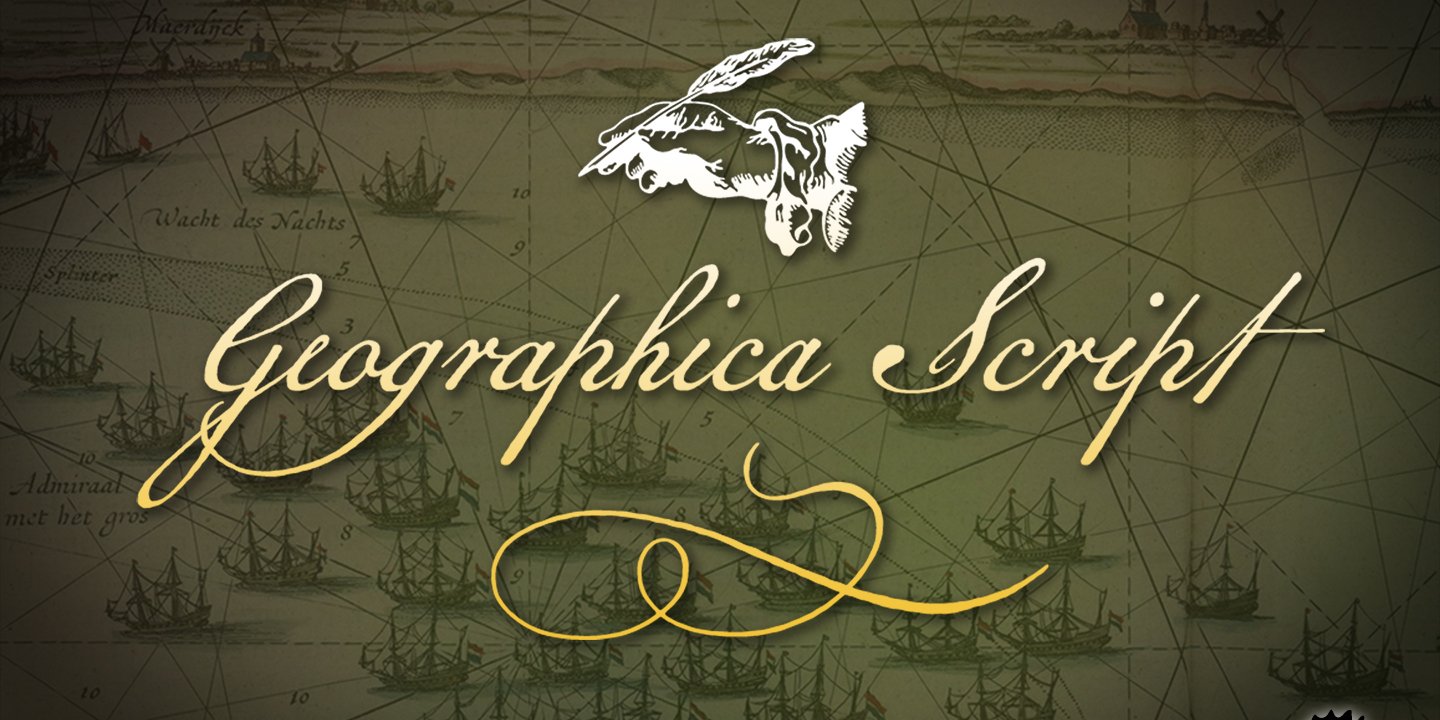
Geographica Script Font is perfect for travel blog headers, adventure tourism branding, cartographic design projects, geographical educational materials, expedition documentation, vintage map reproductions, exploration company logos, world heritage site signage, cultural geography publications, and wanderlust-inspired marketing campaigns.
Geographica Script Font is exciting because it captures the spirit of exploration and geographical discovery through its fluid, cartographic-inspired letterforms that evoke the elegance of hand-drawn maps while delivering messages with adventurous sophistication and worldly charm.
Geographica Script Font family includes Regular, Bold, Light, Expedition, Italic, Condensed, Atlas, and Compass variations, providing designers with a complete exploration toolkit to create inspiring visual communications that celebrate global discovery and geographical knowledge across diverse travel applications.
Geographica Script Font embodies the essence of wanderlust and geographical exploration, making it an essential choice for travel companies, educational institutions, and cultural organizations that celebrate the beauty of our planet and the human desire to explore new territories. This adventurous typeface brings worldly sophistication to any design project, whether you're developing travel agency identities, creating geography educational resources, or designing materials for cultural exchange programs. The elegantly crafted character flow of Geographica Script Font Free Download ensures maximum visual appeal while maintaining excellent readability across both traditional print maps and contemporary digital travel platforms that inspire global exploration and cultural discovery.
Travel industry professionals consistently select Geographica Script Font for luxury travel agencies, cultural tour operators, and adventure travel companies because of its ability to communicate wanderlust, cultural sophistication, and appreciation for global diversity. The font's worldly appearance makes it particularly effective for targeting experienced travelers and creating brand experiences that emphasize authentic cultural exploration.
Geographica Script Font excels in educational and cultural applications where geographical knowledge and cultural understanding intersect. Geography departments, cultural museums, and international exchange programs rely on this font to create materials that inspire global awareness and appreciation for our planet's diverse landscapes and cultures.
The hospitality and publishing sectors have embraced Geographica Script Font for boutique travel publications, world heritage hotels, and cultural documentation projects. Its sophisticated visual character helps organizations create communications that celebrate global culture and geographical beauty, appealing to audiences seeking meaningful travel experiences that expand their understanding of our interconnected world.